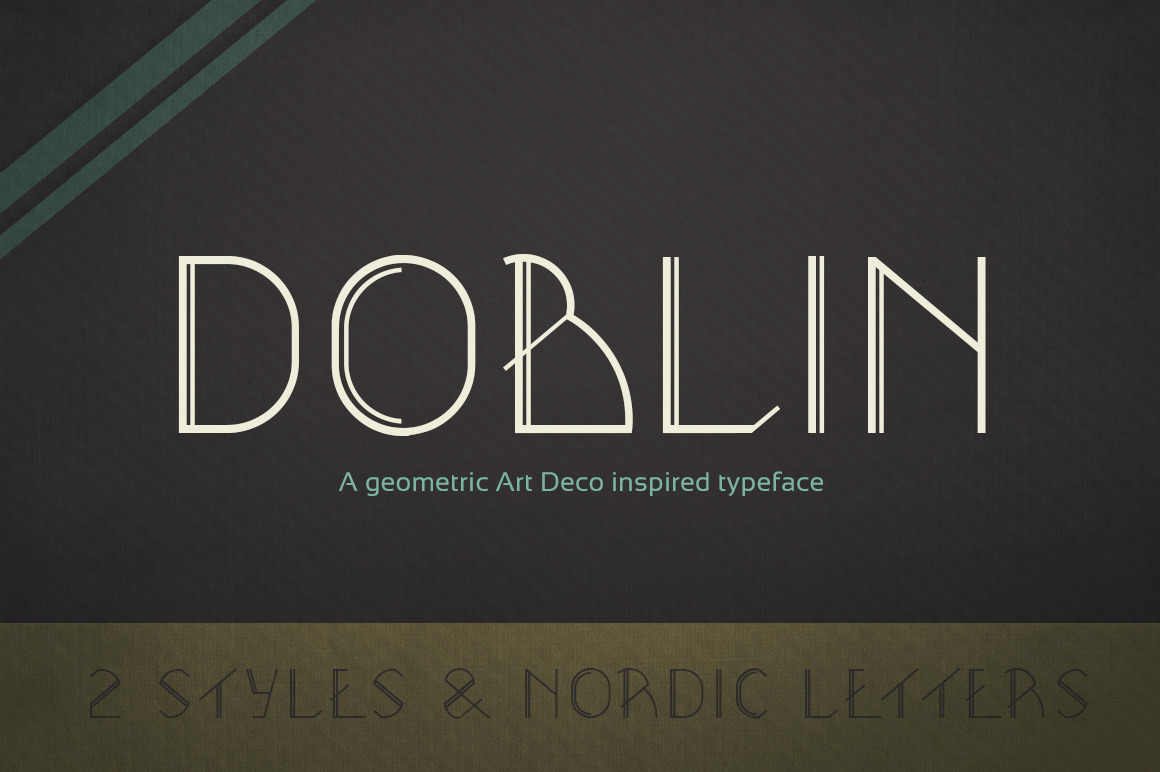
Doblin Typeface (2 Styles)
Doblin is an Art Deco inspred geometric typeface with a unique style. It will fit retro touched artworks as well as modern and clean layouts.
The Doblin typeface is a display TTF-font with caps only. It comes in two styles with numbers, punctuation and Nordic characters included.